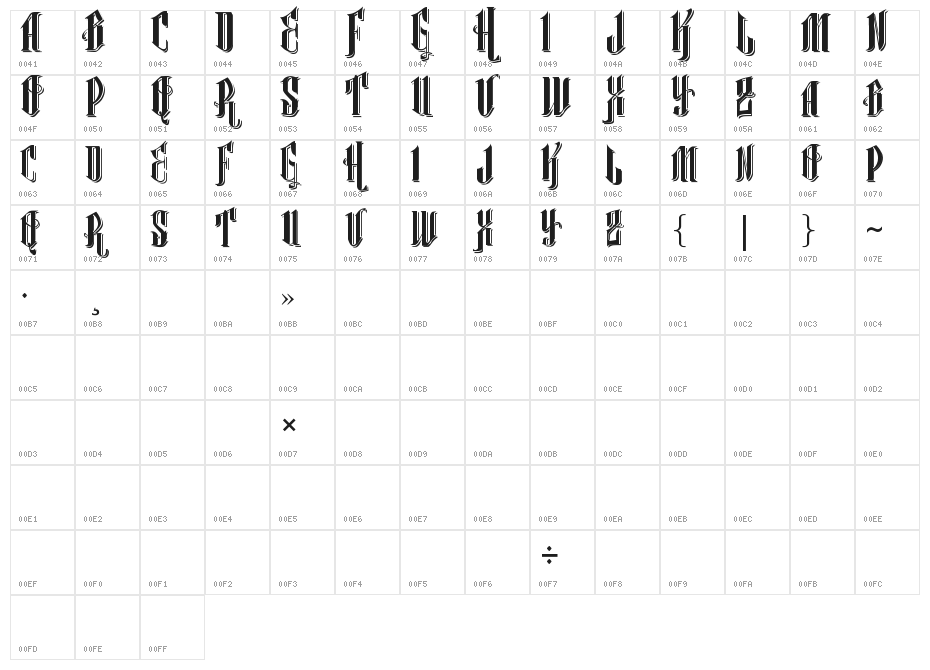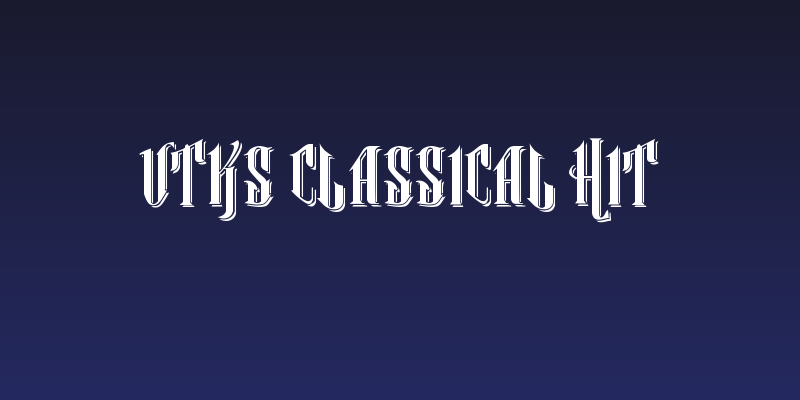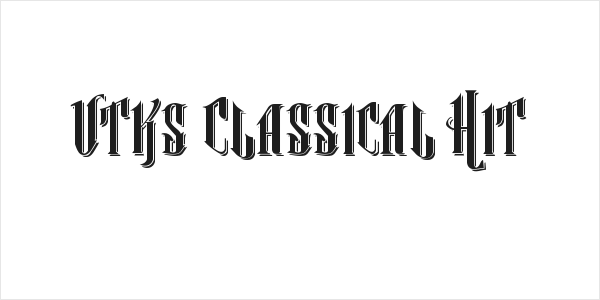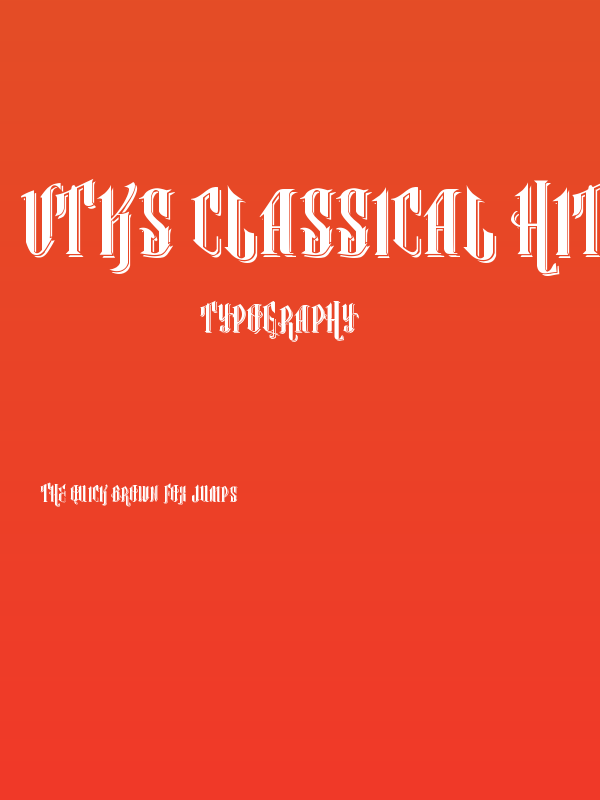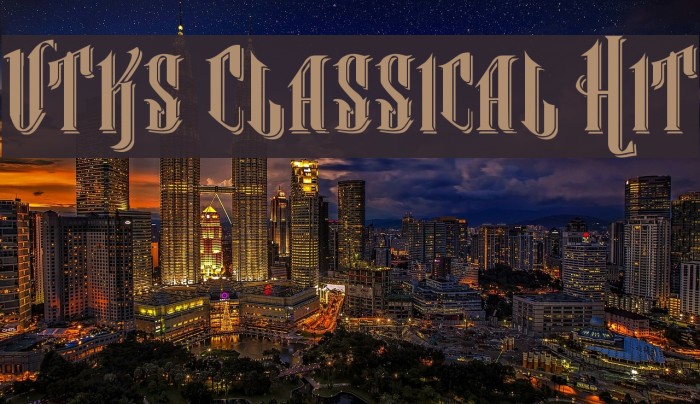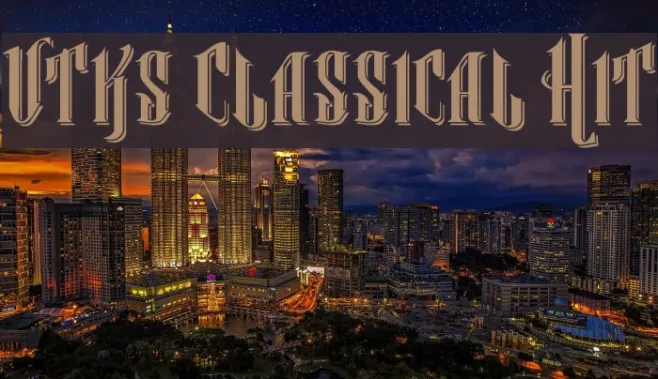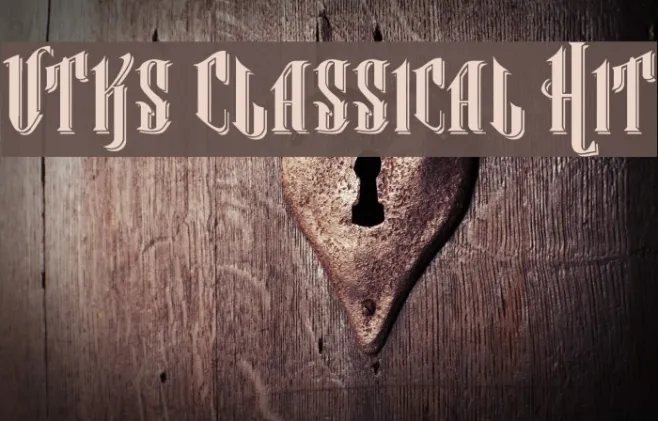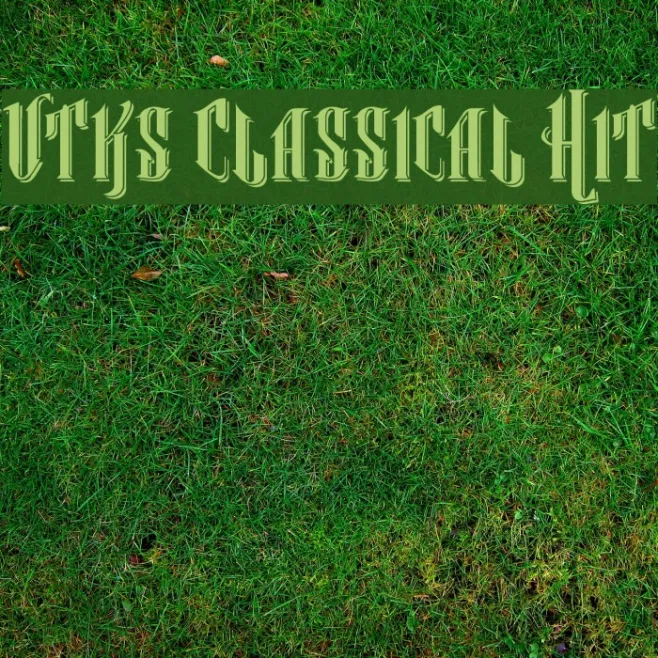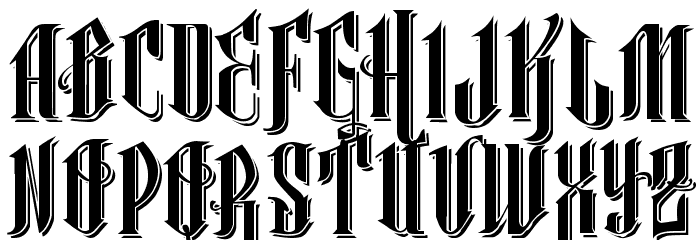
Vtks Classical Hit Font
Vtks Classical Hit Description
This font exhibits a bold and dramatic style, characterized by its sharp, angular lines and high contrast between thick and thin strokes. The uppercase letters are particularly striking, with ornate serifs and a gothic influence that gives them a medieval appearance. The lowercase letters maintain the same decorative style, ensuring consistency throughout the typeface. The numbers and special characters are designed to match the elaborate style of the alphabet, making this font suitable for creating a cohesive and visually impactful design. The overall aesthetic is reminiscent of traditional blackletter fonts, yet it incorporates modern elements that enhance its versatility.
| Proposed Projects | Ideal for projects requiring a dramatic and historical feel, such as event posters, book covers, or branding for luxury products. |